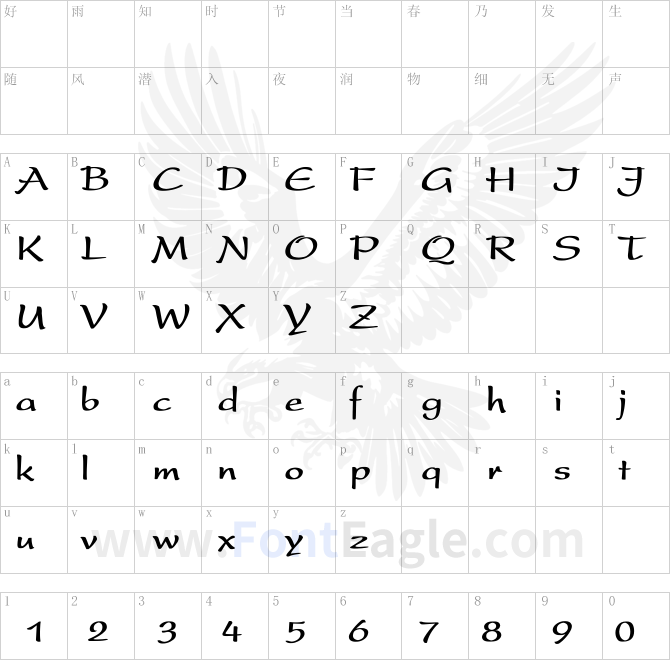
Prescript-Bold is a great font, widely used in graphic design, single-page menu design, poster design and other fields, and is deeply loved by designers.Prescript-Bold download.